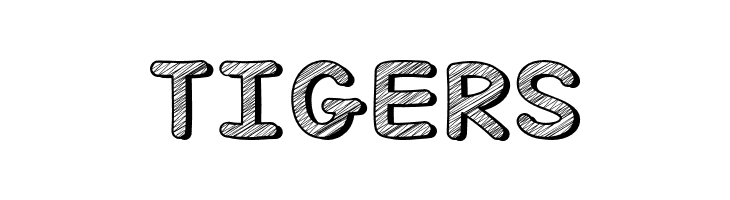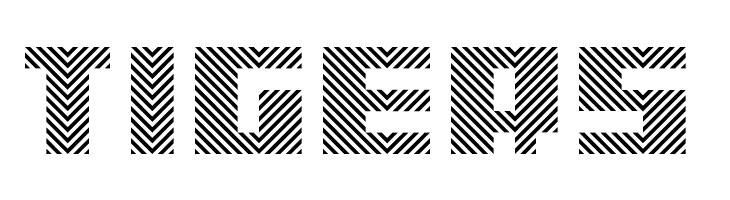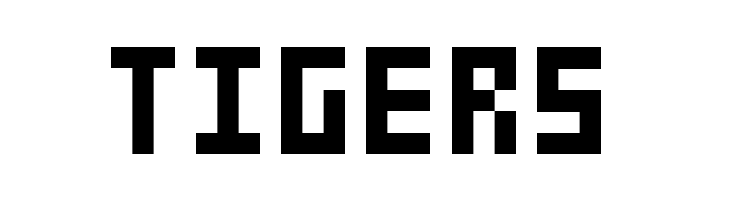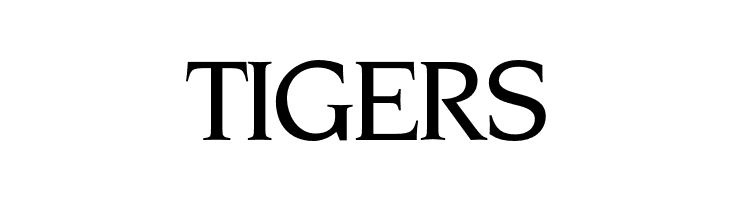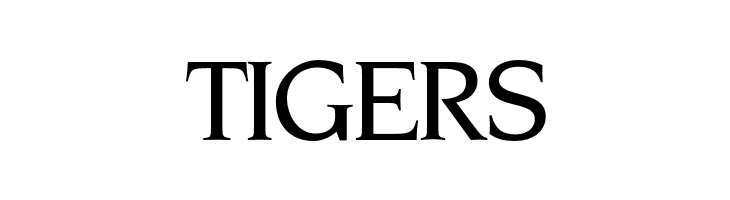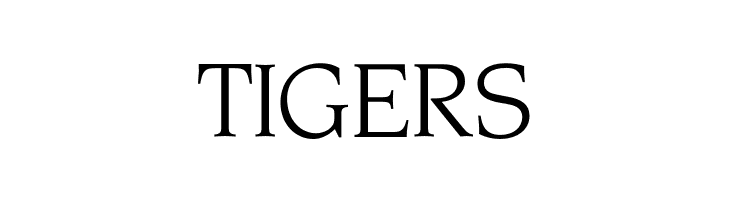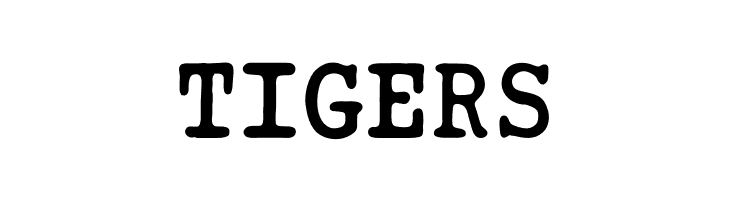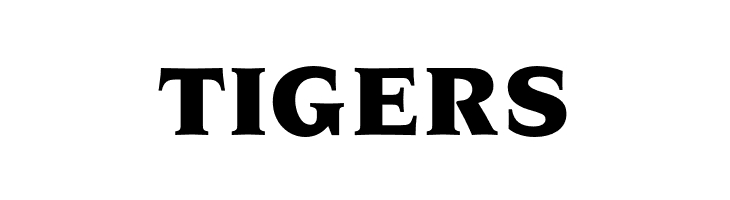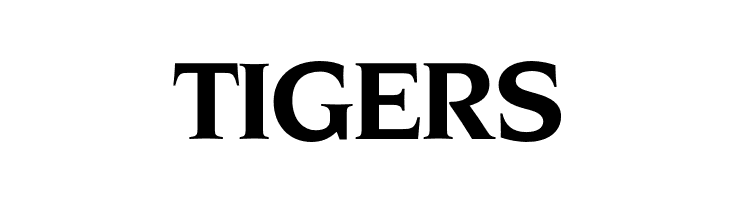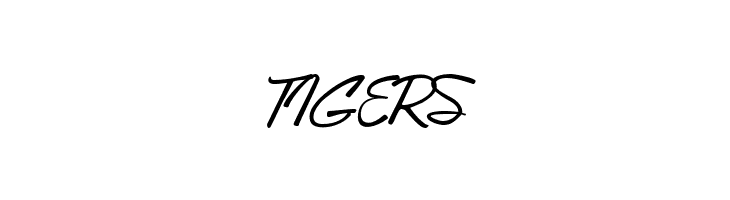
An elegant, italic serif font with moderate contrast and a dynamic style.
A refined serif typeface with balanced proportions and subtle contrast.
An elegant serif font with a classic italic style, perfect for formal use.
A bold, rounded monospaced font with a playful and structured design.
A bold serif font with strong strokes and pronounced serifs, ideal for impactful designs.
A bold serif font with strong strokes and a classic, authoritative style.
A dynamic, hand-drawn style font with bold, irregular strokes.
A font with no visible characters.
A bold, decorative font with intricate internal patterns and elegant swirls.
A bold, hand-drawn font with an expressive, graffiti-like style.
A clean, monospaced font ideal for coding and technical documentation.
A bold, playful font with thick, uneven strokes and whimsical serifs.
A bold, geometric font with a digital, futuristic style.
A playful, bold script font with a handwritten style.
A pixelated, block-style font with a digital, futuristic aesthetic.
A minimalist, geometric font with clean lines and rounded edges.
A modern, geometric sans-serif font with a bold and clean design.
A clean, geometric font with a modern and balanced design.
A modern geometric font with high contrast and stylish, elongated forms.
A modern, geometric font with bold uppercase and consistent lowercase characters.
A dynamic, expressive handwritten font with fluid strokes.
A modern, oblique sans-serif font with a dynamic and sleek design.
A modern sans-serif font with geometric shapes and uniform strokes.
A bold, graffiti-inspired font with sharp, angular lines and high contrast.
A decorative and eclectic font with a collage-like mix of styles and embellishments.
A bold, decorative font with Greek-inspired elements and shadow effects.
An ornate and decorative font with intricate swirls, ideal for vintage-themed projects.
A bold, hand-drawn font with a sketch-like, textured appearance.
A bold, geometric font with diagonal line patterns for a futuristic look.
A bold, geometric font with a modern, digital aesthetic.